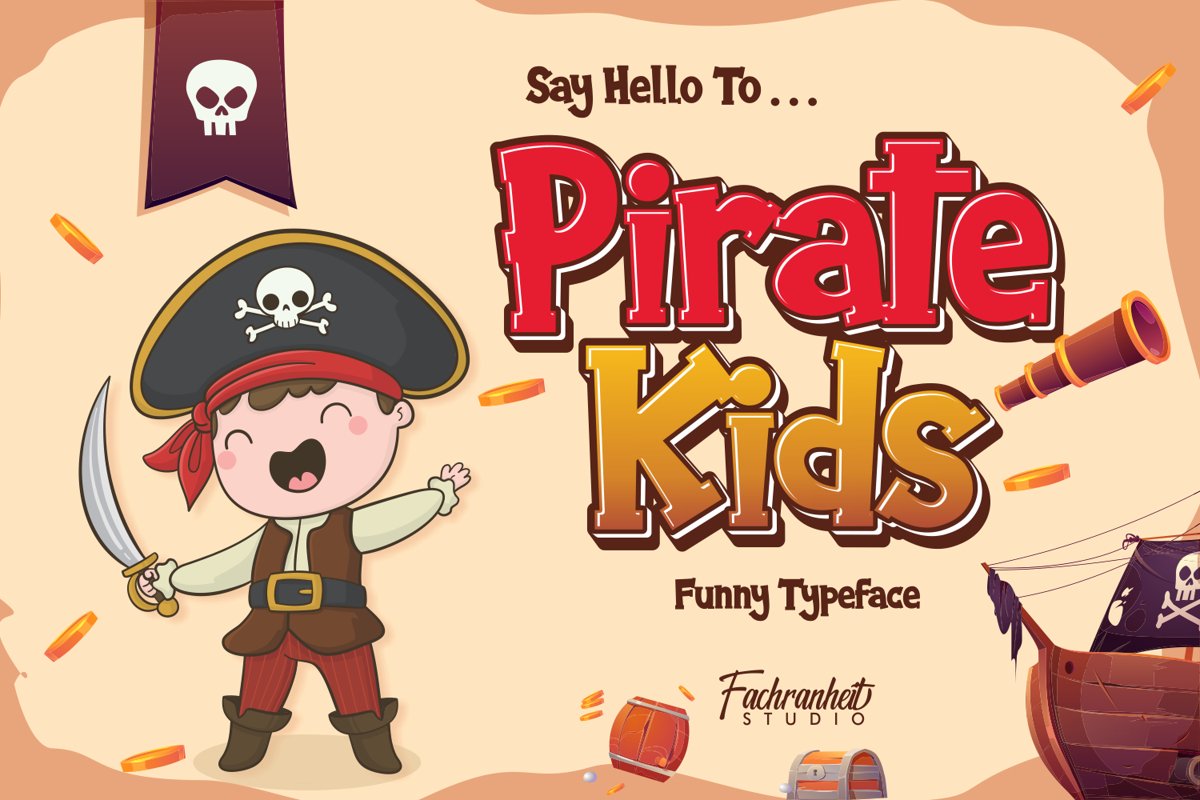
Pirate Kids
Pirate Kids is a cute and casual display font with an incredibly friendly feel. Whether you’re looking for fonts for Instagram or calligraphy scripts for DIY projects, this font will turn any creative idea into a true piece of art!